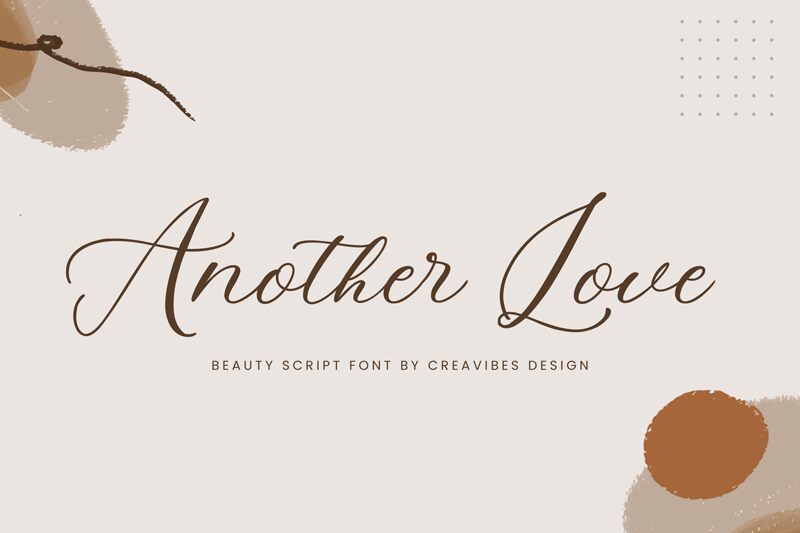
Another Love font by Creavibes Design is a free light calligraphy script font. Airy strokes glide with a gentle slant, then swell into inky contrasts, giving each word a lilt and a whispery grace. The rhythm is smooth, connections feel natural, and the long, silky exits create an instant sense of romance without tipping into fussiness.
Using Another Love, your wedding invitations, save-the-date cards, boutique logos, beauty packaging, quote graphics, social headers, and event signage gain a polished, hand-penned warmth. This free font shines when set large so the swashes can breathe; add a touch of tracking for clarity. Simple pairing tip: match it with a clean, narrow sans for body copy to keep the script in the spotlight.
Another Love